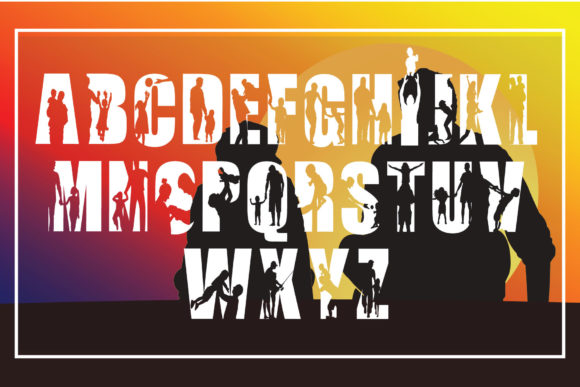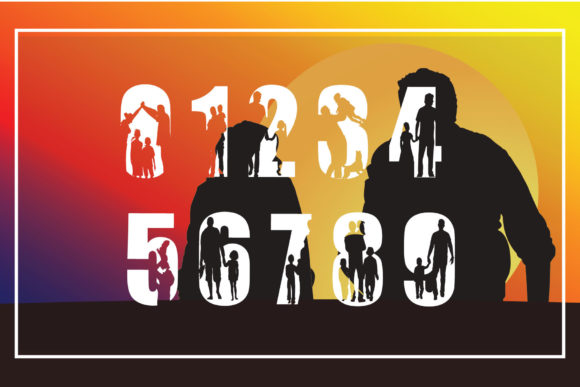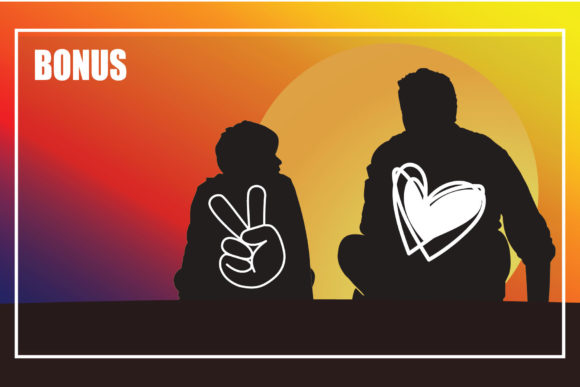
Introducing Father Font: Elevate Your Designs with Timeless Elegance
Are you on the hunt for a font that exudes sophistication, style, and a touch of uniqueness? Look no further than Father Font, a decorative typeface that’s about to revolutionize the way you approach design. With its incredibly stylish look and versatility, Father Font is the perfect addition to any designer’s arsenal.
The Allure of Father Font
What sets Father Font apart from other fonts is its distinctive, elegant aesthetic. Each letter is carefully crafted to convey a sense of luxury, making it an ideal choice for projects that demand a high level of sophistication. Whether you’re working on a logo, quote, invitation, or business card, Father Font brings a level of refinement that’s hard to match.
The versatility of Father Font is one of its most compelling features. This font isn’t just limited to one or two specific uses; rather, it can be applied to a wide range of design projects. Here are just a few ideas to get you started:
• Logos: Create a memorable brand identity with a logo that stands out, thanks to Father Font’s unique and stylish characters.
• Quotes and Posters: Add a touch of elegance to inspirational quotes or promotional posters, making them more impactful and shareable.
• Invitations: Whether it’s a wedding, birthday, or corporate event, Father Font can help you design invitations that are both beautiful and effective.
• Business Cards: Stand out in a stack of business cards with a design that’s both professional and stylish, courtesy of Father Font.
• PowerPoint Presentations: Elevate your presentations with a font that commands attention and respect, making your content more engaging.
Why Choose Father Font?
In a world where design trends come and go, Father Font offers a timeless quality that’s hard to find. Here are a few reasons why designers and crafters are falling in love with this unique font:
• Unique Aesthetic: Father Font boasts a design that’s both fresh and classic, allowing your work to stand out without looking dated.
• Ease of Use: Despite its sophisticated look, Father Font is incredibly easy to use, even for those who are new to design.
• High Versatility: From digital projects to print materials, Father Font adapts seamlessly, ensuring your designs look great across different mediums.
Tips for Using Father Font Effectively
To make the most of Father Font, consider the following tips:
• Mix and Match: Combine Father Font with simpler fonts to create visual interest and hierarchy in your designs.
• Play with Colors: While the font itself is a star, experimenting with different colors can further enhance its beauty and adapt it to your brand’s palette.
• Experiment with Sizes: Don’t be afraid to vary the font size to emphasize certain words or phrases, adding depth to your design.
Father Font is more than just a decorative typeface; it’s a tool that can elevate your designs, making them more engaging, sophisticated, and memorable. Whether you’re a professional designer or a crafting enthusiast, this font offers a world of possibilities for creating gorgeous and timeless designs. So why wait? Fall in love with Father Font and discover a new level of design excellence.